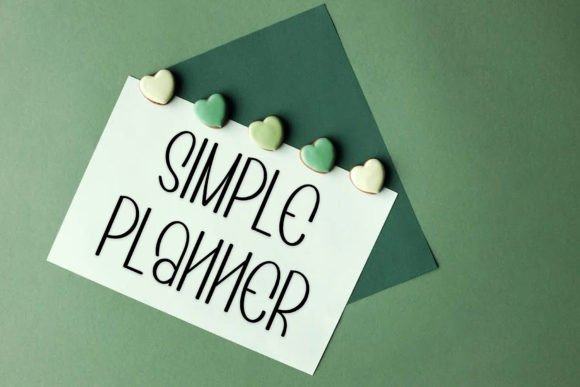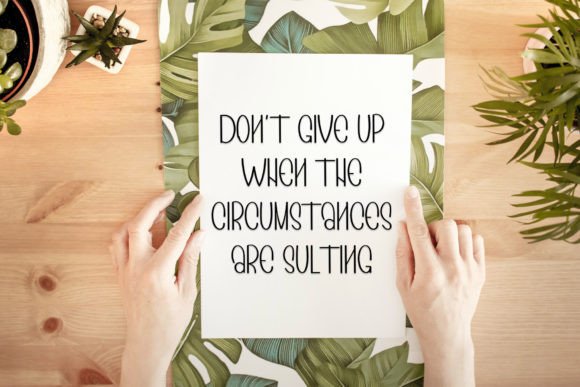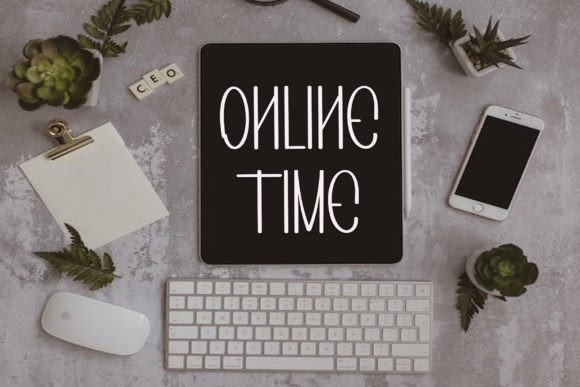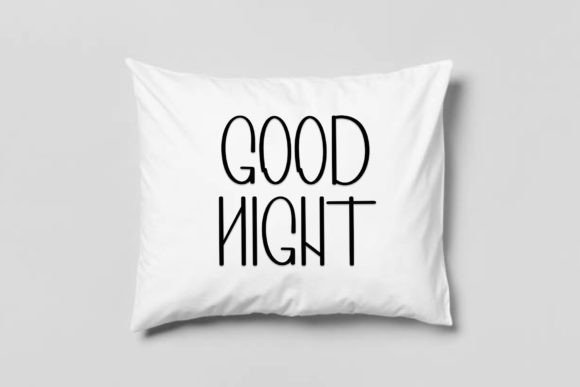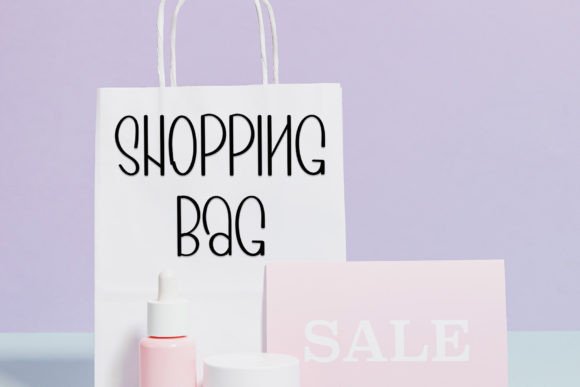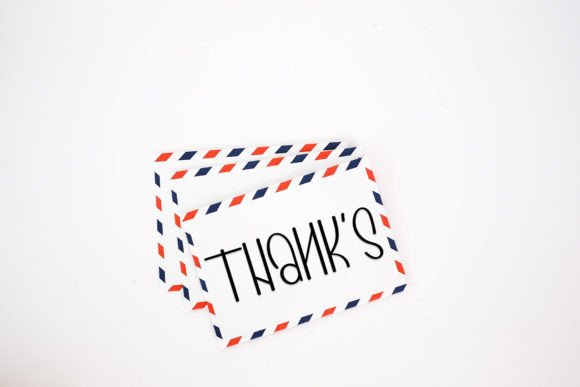
The Perfect Touch of Elegance: Unveiling the Brilliant Font
Have you ever sat at your desk, staring at a blank piece of paper, trying to come up with the perfect phrase to express your love and gratitude to someone special? Maybe it’s a wedding invitation, a heartfelt thank you note, or a birthday message that needs to convey just the right amount of emotion. Whatever the occasion, you want your words to shine, and that’s where the Brilliant Font comes in.
This stylish and elegant writing font is designed to add a touch of sophistication and whimsy to any design. With its modern and minimalist style, the Brilliant Font is perfect for creating beautiful life moments, from wedding invitations to thank you cards, quotes, and more. For designers, the Brilliant Font is a valuable asset, offering a unique and versatile tool to elevate any project and leave a lasting impression.
- Unique Characteristics: Brilliant Font features a unique blend of modern and vintage elements, with a distinctive flair that sets it apart from other sans-serif fonts.
Brilliant Font Review
Overall, I’d say Brilliant Font has some great qualities, but it’s not without its limitations. Let’s dive in and see what it has to offer.
- Unique Style: Brilliant Font has a distinctive, hand-drawn feel that sets it apart from other fonts. It’s perfect for creatives who want to add some personality to their designs.
- Readability: The font is surprisingly easy to read, even at small sizes. The curves and lines work well together to create a clear, legible typeface.
- Customization Options: The font offers a range of weights and styles, making it versatile for different design applications.
- Lack of Consistency: At times, the font feels a bit inconsistent in its design. Some letters look a bit too simplistic, while others have a more elaborate feel.
- Not Ideal for Body Text: While Brilliant Font is great for headlines and titles, it’s not the best choice for body text. It can be a bit too ornate and distracting for larger blocks of text.
Overall, I think Brilliant Font is a solid choice for designers who want to add some personality to their work. While it has some limitations, its unique style and readability make it a great option for creative projects. Just be sure to use it wisely, and you’ll be sure to get great results!
Tips for Getting the Most Out of Brilliant Font
Here are some tips for getting the most out of Brilliant Font:
– Use it sparingly to create emphasis and visual interest.
– Experiment with different font sizes and styles to create a unique look.
– Pair it with other fonts to create a harmonious design.
Here are some common use cases for Brilliant Font:
– Creating eye-catching headlines and titles.
– Designing invitations and event materials.
– Developing branding and marketing materials.
Alternatives to “Brilliant Font” for Designers
Open Sans is a modern sans-serif font that is highly legible and versatile. It’s ideal for body text, headlines, and UI elements. Open Sans is more neutral and subtle compared to Brilliant Font, which is bolder and more eye-catching. Open Sans is a great choice when you need a clean and professional look.